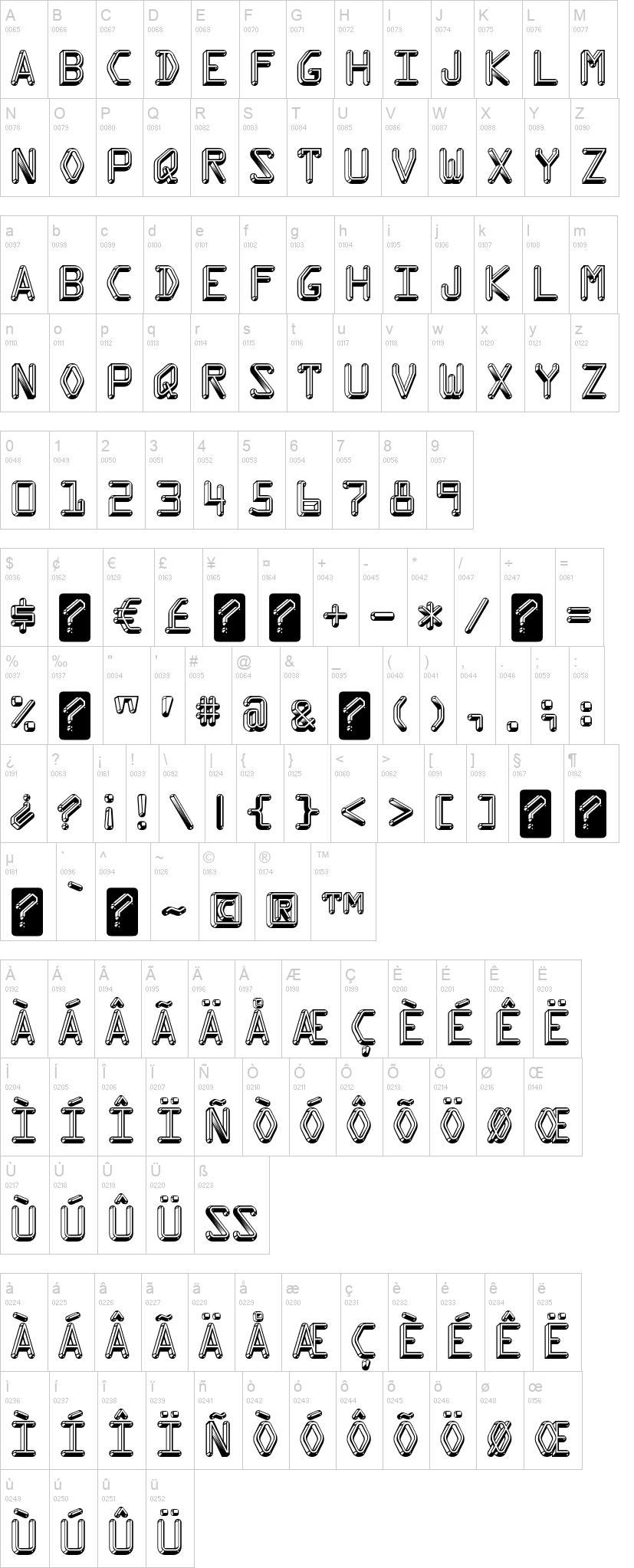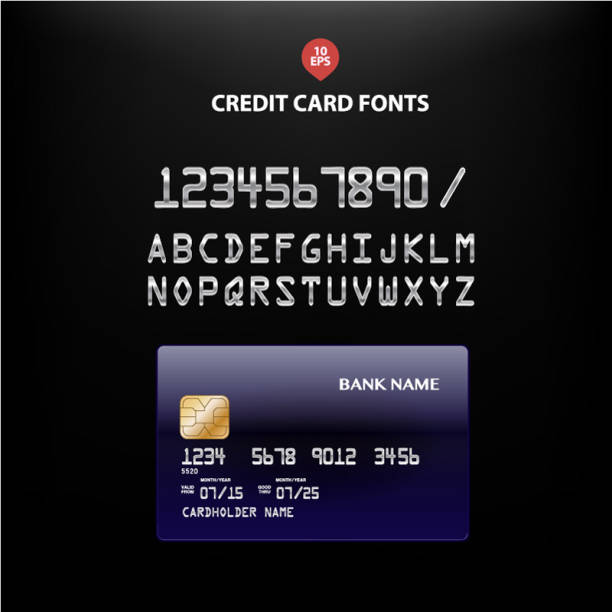
Credit Card Number Font
Credit Card Number Font - The number keys produce the. Web credit card is an all capitals font for simulating bank cards (and to suggest a context of banking, finance, membership or security). Web credit card font is the specific typeface used for numbers and text on credit cards. Stack the back, front, and shine layers or use the translucent regular style.
The number keys produce the. Web credit card font is the specific typeface used for numbers and text on credit cards. Stack the back, front, and shine layers or use the translucent regular style. Web credit card is an all capitals font for simulating bank cards (and to suggest a context of banking, finance, membership or security).
Web credit card font is the specific typeface used for numbers and text on credit cards. The number keys produce the. Web credit card is an all capitals font for simulating bank cards (and to suggest a context of banking, finance, membership or security). Stack the back, front, and shine layers or use the translucent regular style.
Stack the back, front, and shine layers or use the translucent regular style. The number keys produce the. Web credit card is an all capitals font for simulating bank cards (and to suggest a context of banking, finance, membership or security). Web credit card font is the specific typeface used for numbers and text on credit cards.
The number keys produce the. Stack the back, front, and shine layers or use the translucent regular style. Web credit card is an all capitals font for simulating bank cards (and to suggest a context of banking, finance, membership or security). Web credit card font is the specific typeface used for numbers and text on credit cards.
Web credit card is an all capitals font for simulating bank cards (and to suggest a context of banking, finance, membership or security). The number keys produce the. Web credit card font is the specific typeface used for numbers and text on credit cards. Stack the back, front, and shine layers or use the translucent regular style.
The number keys produce the. Web credit card is an all capitals font for simulating bank cards (and to suggest a context of banking, finance, membership or security). Web credit card font is the specific typeface used for numbers and text on credit cards. Stack the back, front, and shine layers or use the translucent regular style.
Web credit card is an all capitals font for simulating bank cards (and to suggest a context of banking, finance, membership or security). Web credit card font is the specific typeface used for numbers and text on credit cards. Stack the back, front, and shine layers or use the translucent regular style. The number keys produce the.
The number keys produce the. Web credit card is an all capitals font for simulating bank cards (and to suggest a context of banking, finance, membership or security). Web credit card font is the specific typeface used for numbers and text on credit cards. Stack the back, front, and shine layers or use the translucent regular style.
Web credit card is an all capitals font for simulating bank cards (and to suggest a context of banking, finance, membership or security). Stack the back, front, and shine layers or use the translucent regular style. The number keys produce the. Web credit card font is the specific typeface used for numbers and text on credit cards.
Stack the back, front, and shine layers or use the translucent regular style. The number keys produce the. Web credit card font is the specific typeface used for numbers and text on credit cards. Web credit card is an all capitals font for simulating bank cards (and to suggest a context of banking, finance, membership or security).
The number keys produce the. Web credit card is an all capitals font for simulating bank cards (and to suggest a context of banking, finance, membership or security). Stack the back, front, and shine layers or use the translucent regular style. Web credit card font is the specific typeface used for numbers and text on credit cards.
The Number Keys Produce The.
Stack the back, front, and shine layers or use the translucent regular style. Web credit card is an all capitals font for simulating bank cards (and to suggest a context of banking, finance, membership or security). Web credit card font is the specific typeface used for numbers and text on credit cards.